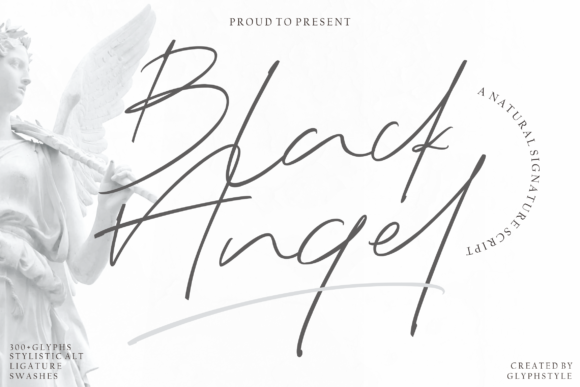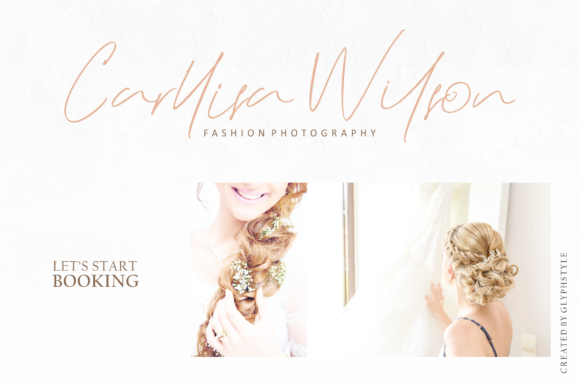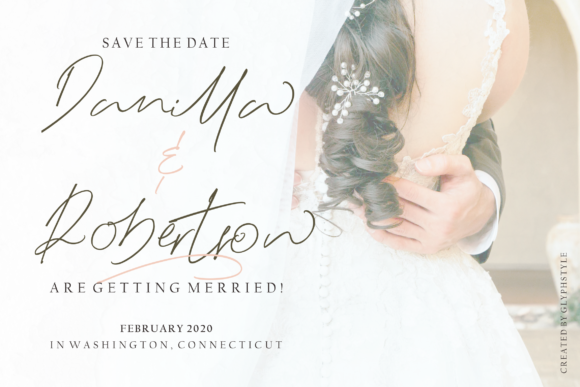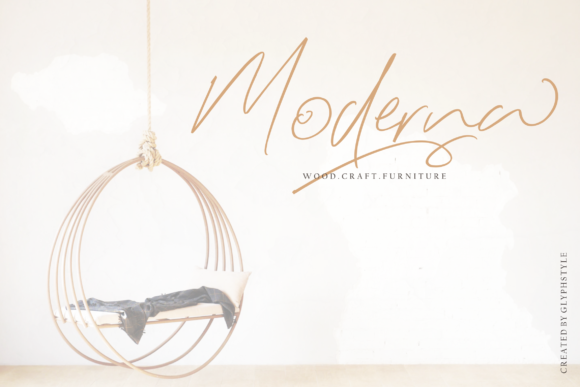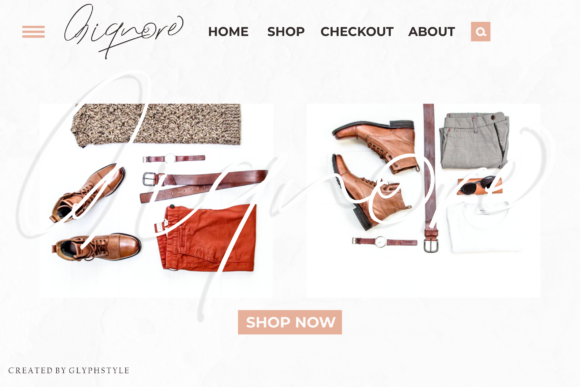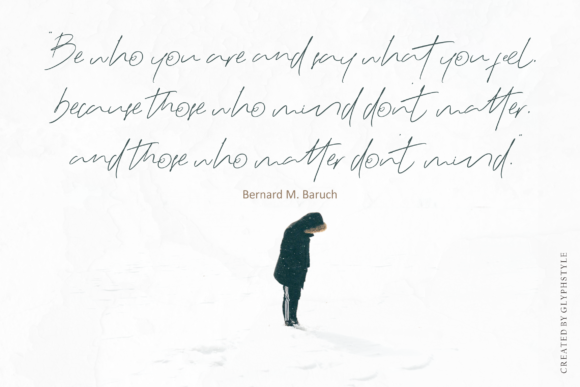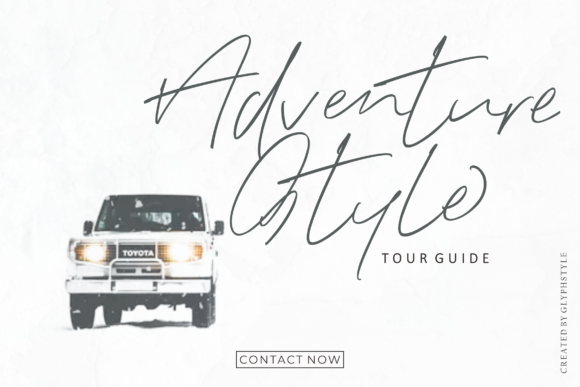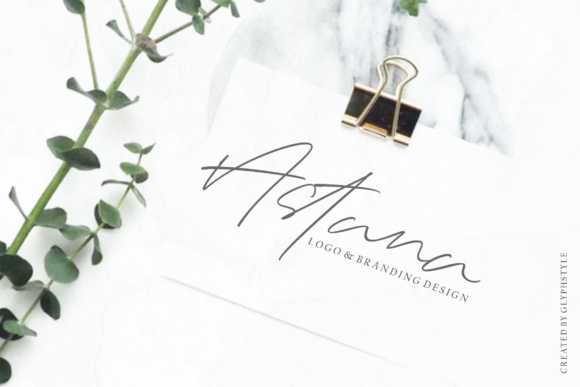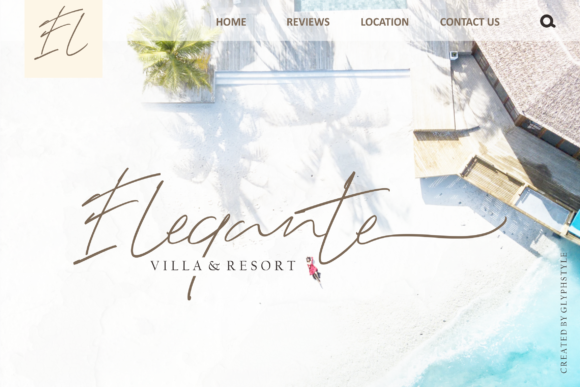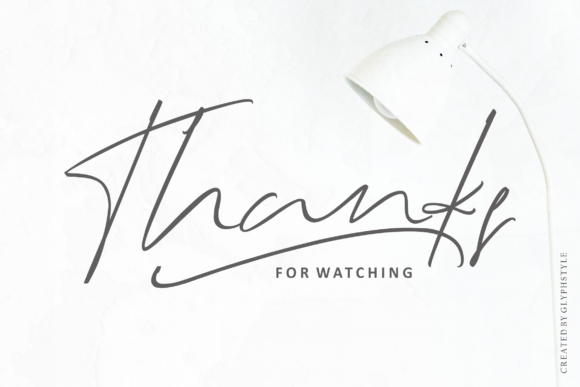
Black Angel Font
About Black Angel Font
Black Angel is a naturally looking script font with broad strokes and spacious lettering. Use it to add a personal touch to any design idea!